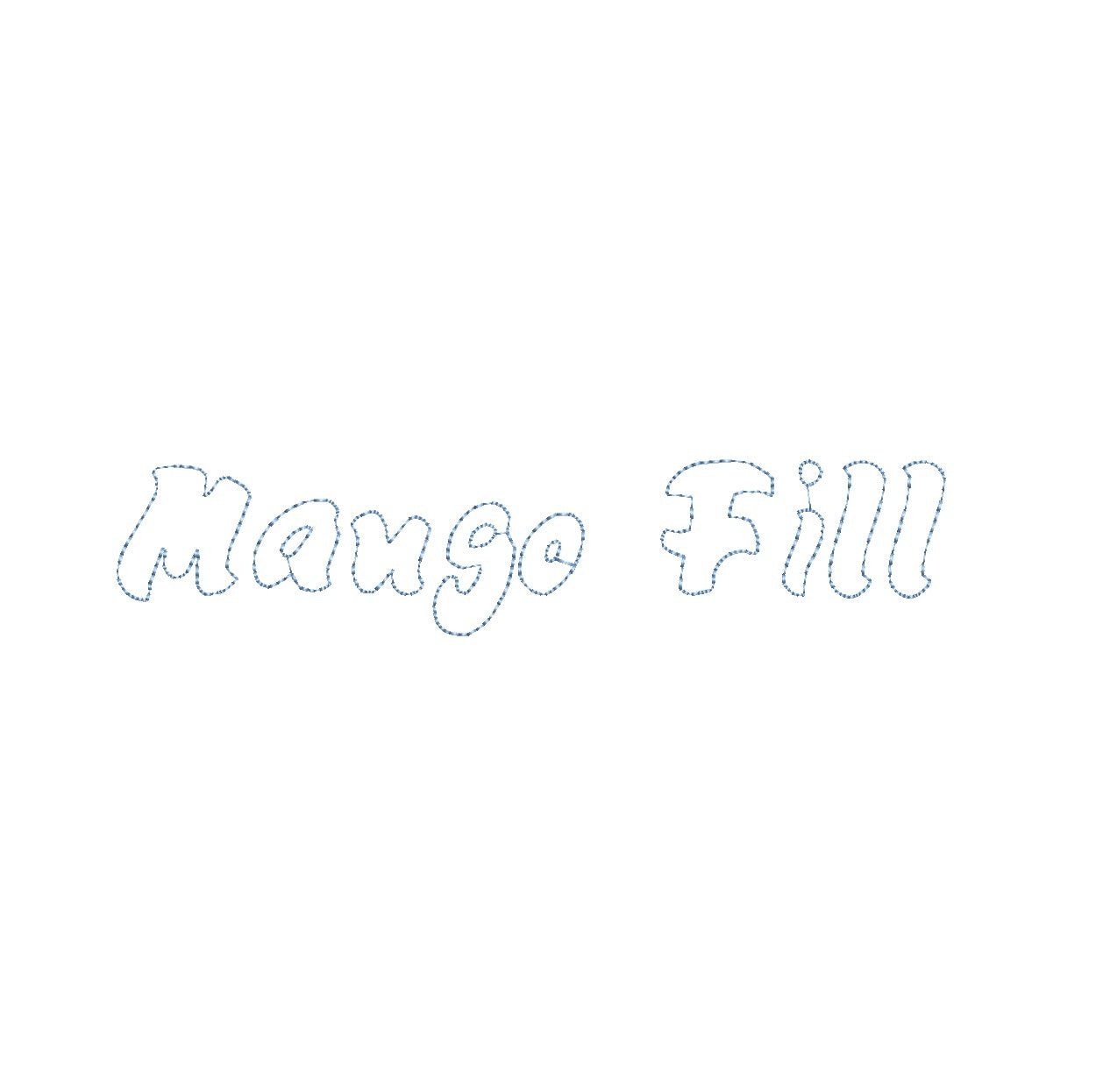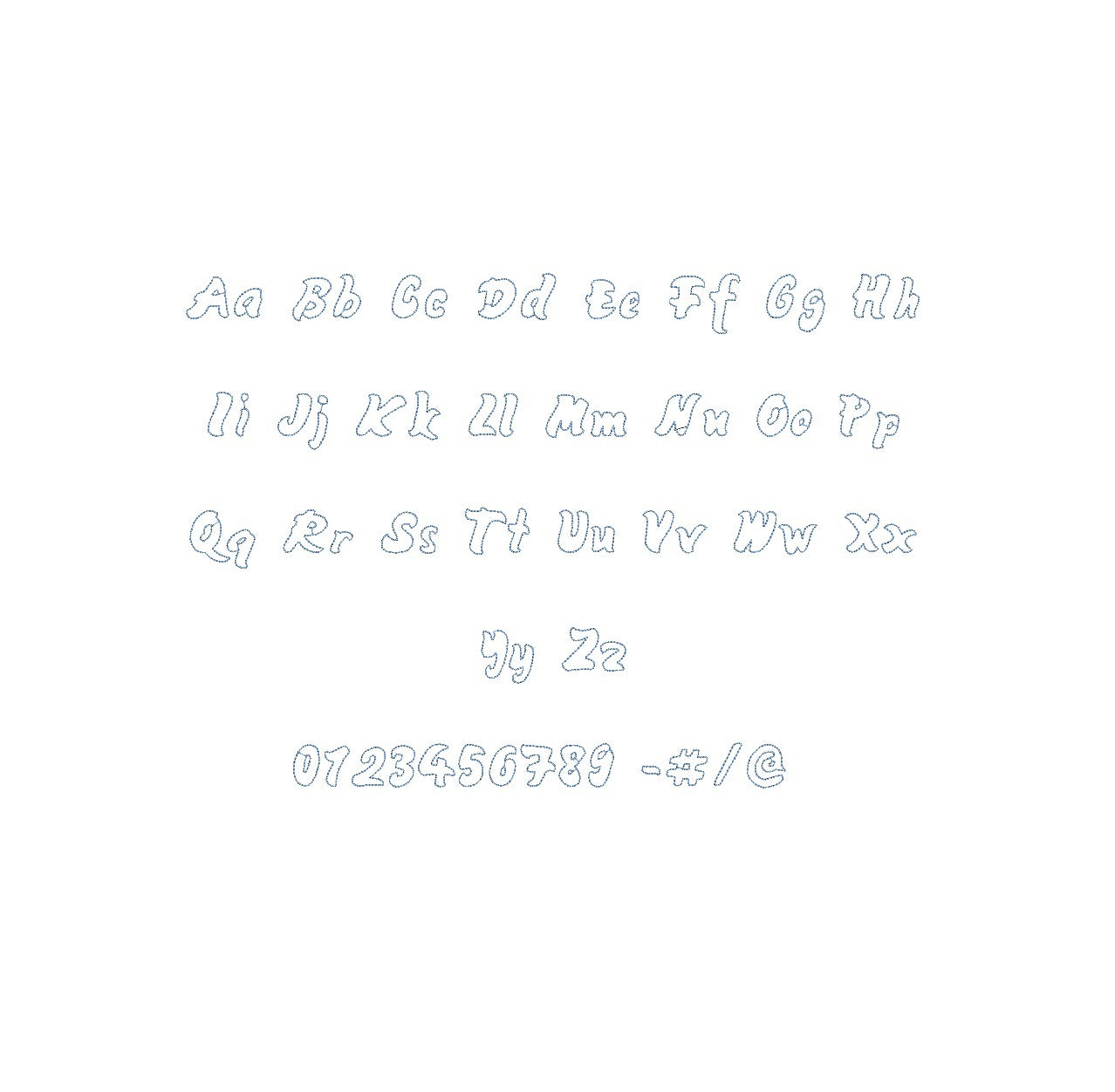
Elevate your embroidery with the Mango Fill Bean Outline ESA font. Designed for Wilcom Studio e4.5.6 and Hatch 3 versions and up, this font seamlessly combines vibrancy and precision. Infuse your projects with a unique aesthetic, perfect for monograms and embellishments. Experience seamless compatibility for outstanding results. Unleash a new level of stitching finesse with the Mango Fill Bean Outline ESA font – your gateway to captivating designs that burst with color and creativity. Transform your creations into embroidery masterpieces that leave a lasting impression, infusing each stitch with the richness of mango-inspired flair.